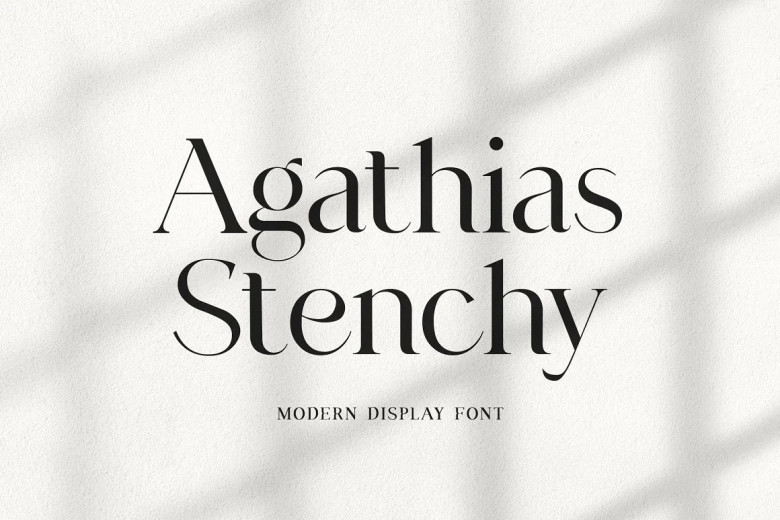
Agathias Stenchy Font
Agathias Stenchy is a modern display serif font that feels beautiful classical, elegant, and modern. This font is ideally suited for a wide variety of projects, such as signature, stationery, logo, wedding, typography quotes.
Agathias Stenchy Serif Font